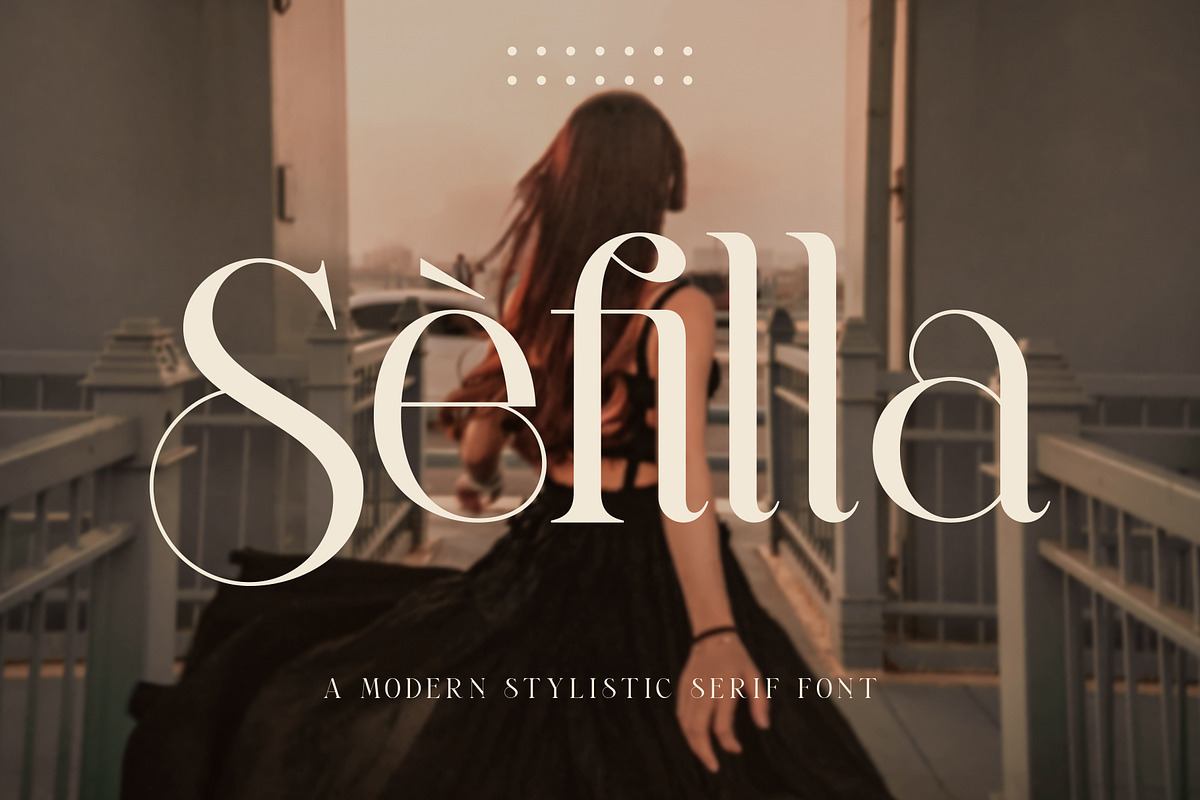
Sefilla | Modern Stylistic Serif Font Free Download is a graceful and contemporary serif typeface with high fashion flair and editorial elegance. Featuring stylish curves, sharp contrasts, and unique letterforms, Sefilla is perfect for branding, magazine layouts, luxury packaging, wedding stationery, and minimalist logo designs.
What makes this font stand out is its sophisticated aesthetic—combining modern design principles with classic serif beauty. Sefilla includes elegant alternates and ligatures, allowing you to create striking, customized typography for both print and digital use. Download it free to test in your projects, but a commercial license is required for any monetized or client-based work.
Elevate your design presence with Sefilla | Modern Stylistic Serif Font Free Download, and bring refinement, confidence, and creativity to every letter you craft. A must-have font for designers aiming for premium and polished visuals.